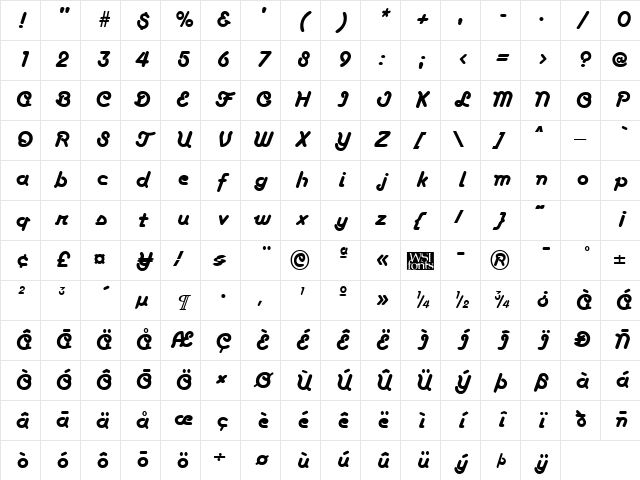
Anaconda Regular
Anaconda Family
Anaconda Regular
Anaconda Regular Font Preview
Anaconda Regular Uppercase Preview
Anaconda Regular Lowercase Preview
Anaconda Regular Numeric Preview
Anaconda Regular Character Map
Complete Anaconda Regular glyph index. Displaying only characters natively supported by Anaconda Regular font.
Anaconda Regular Character Map
Design Context for Anaconda
Anaconda is a composed and adaptable typeface that performs quietly and consistently across a wide range of design contexts. Its narrow stance lets it pack a punch even in space-constrained designs.